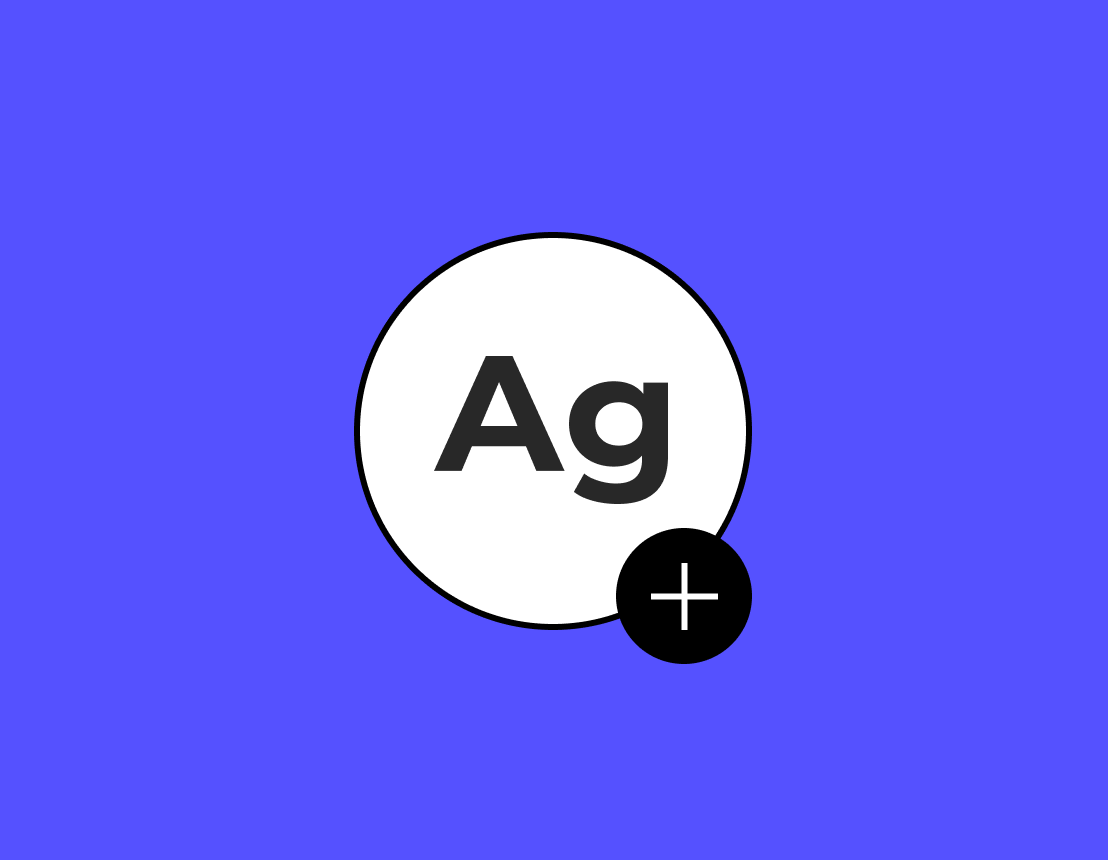
Montserrat Font Pairing
Inspired by an old neighborhood, Montserrat was created by Julieta Ulanovsky in 2010. It pairs well with Source Sans Pro, Fira Sans, Karla, Hind, and Inconsolata.
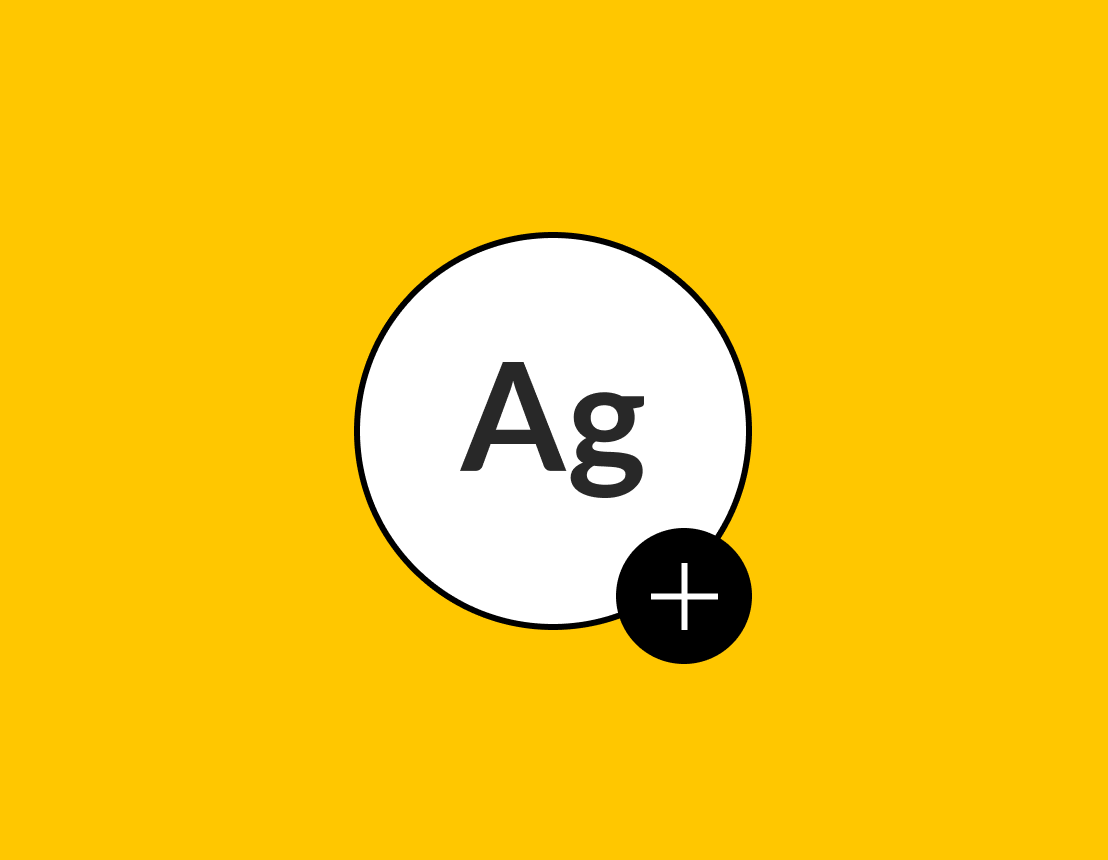
Lato Font Pairing
Lato is an open source, sans-serif font originally developed by Łukasz Dziedzic. It supports 100+ Latin-based languages and pairs well with Abril Fatface, Karla, Merriweather, and Francois One.
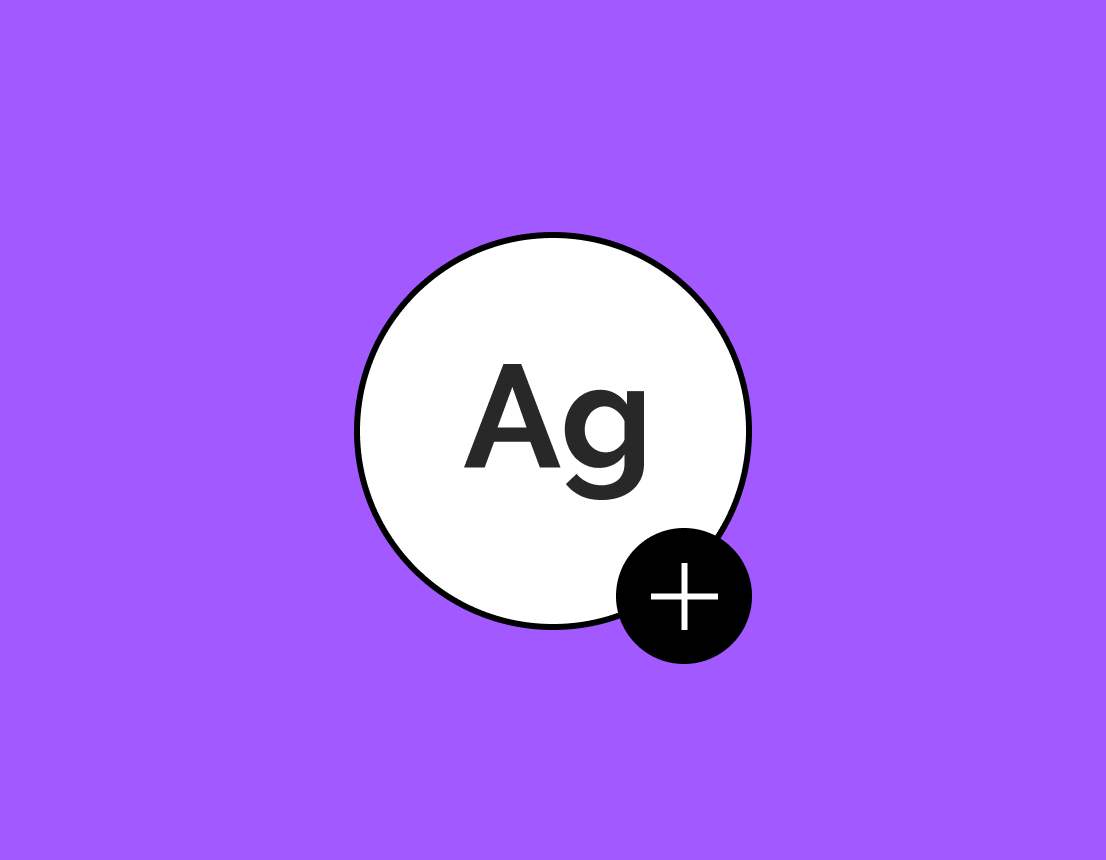
Raleway Font Pairing
Raleway is an elegant san-serif typeface developed by Matt McInerney in 2010. It pairs well with Merriweather, Bitter, Cabin, Hind, and Inconsolata.
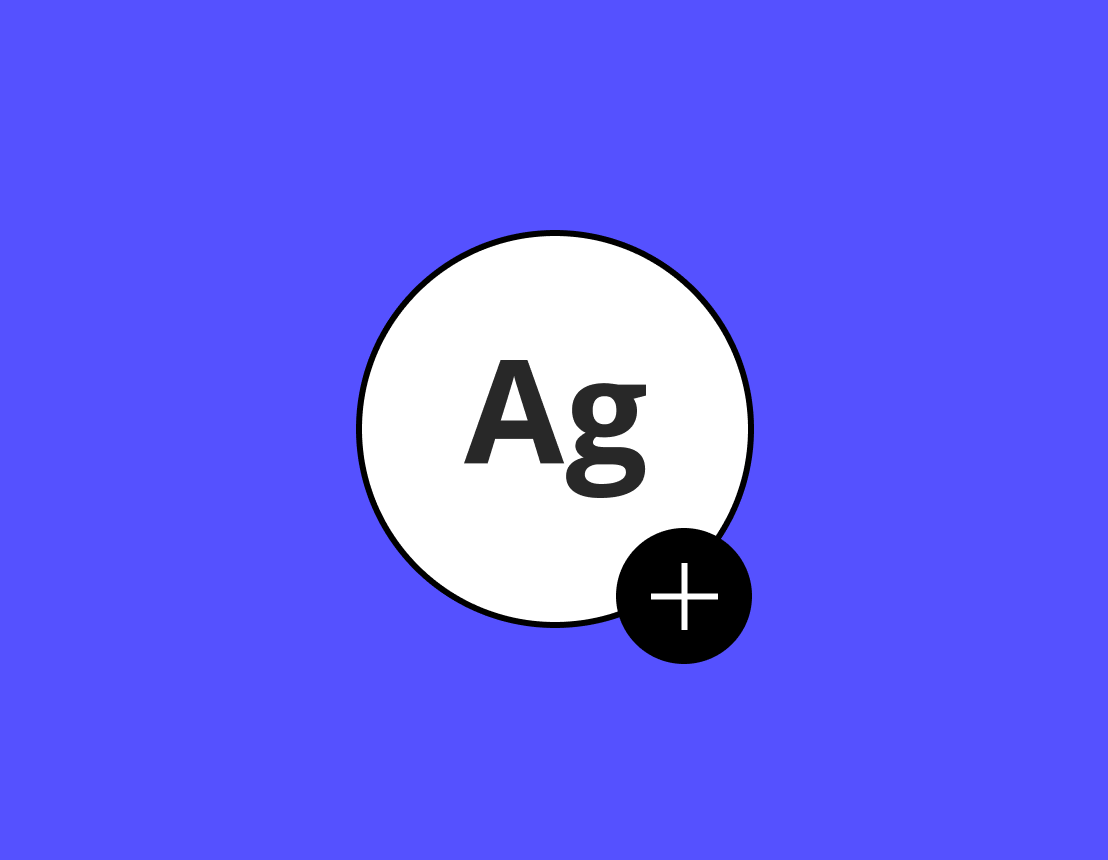
Open Sans Pairing
Open Sans is a sans-serif font developed by Steve Matteson. Its optimized for print, web, and mobile and pairs well with Montserrat, Bitter, Source Sans Pro, Domine, and Alegreya.
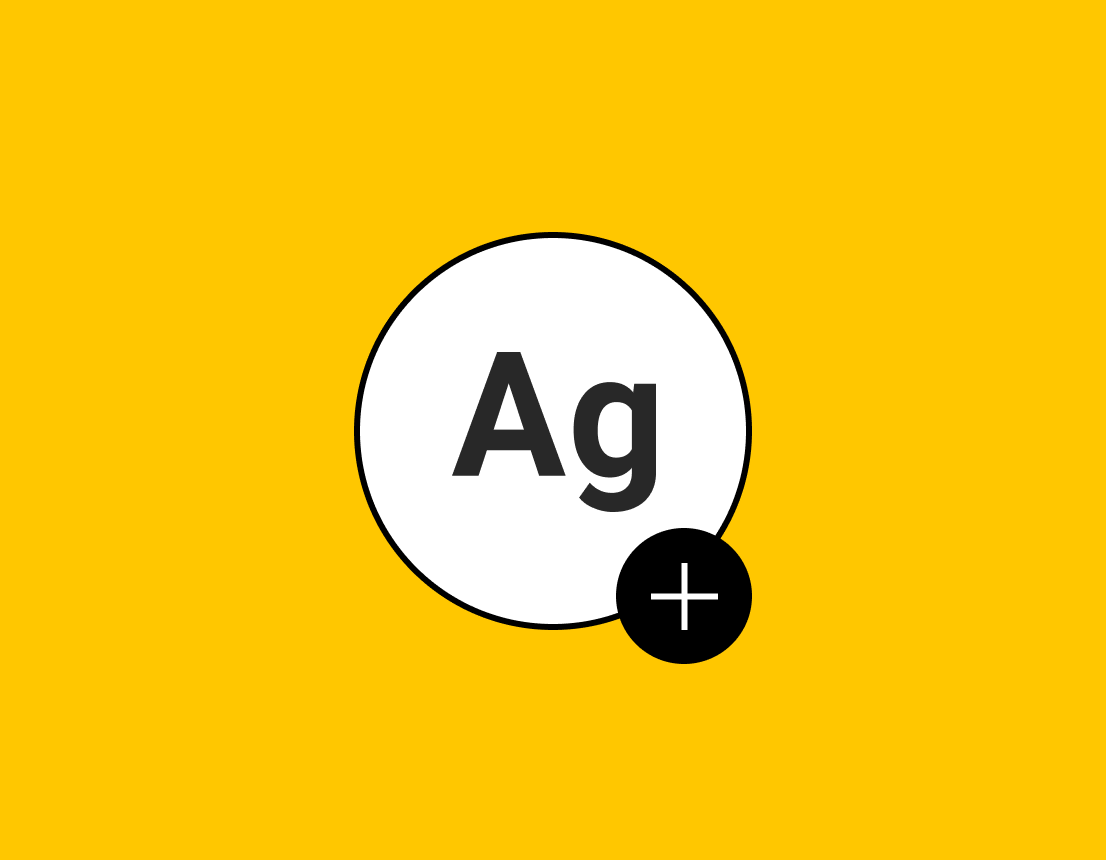
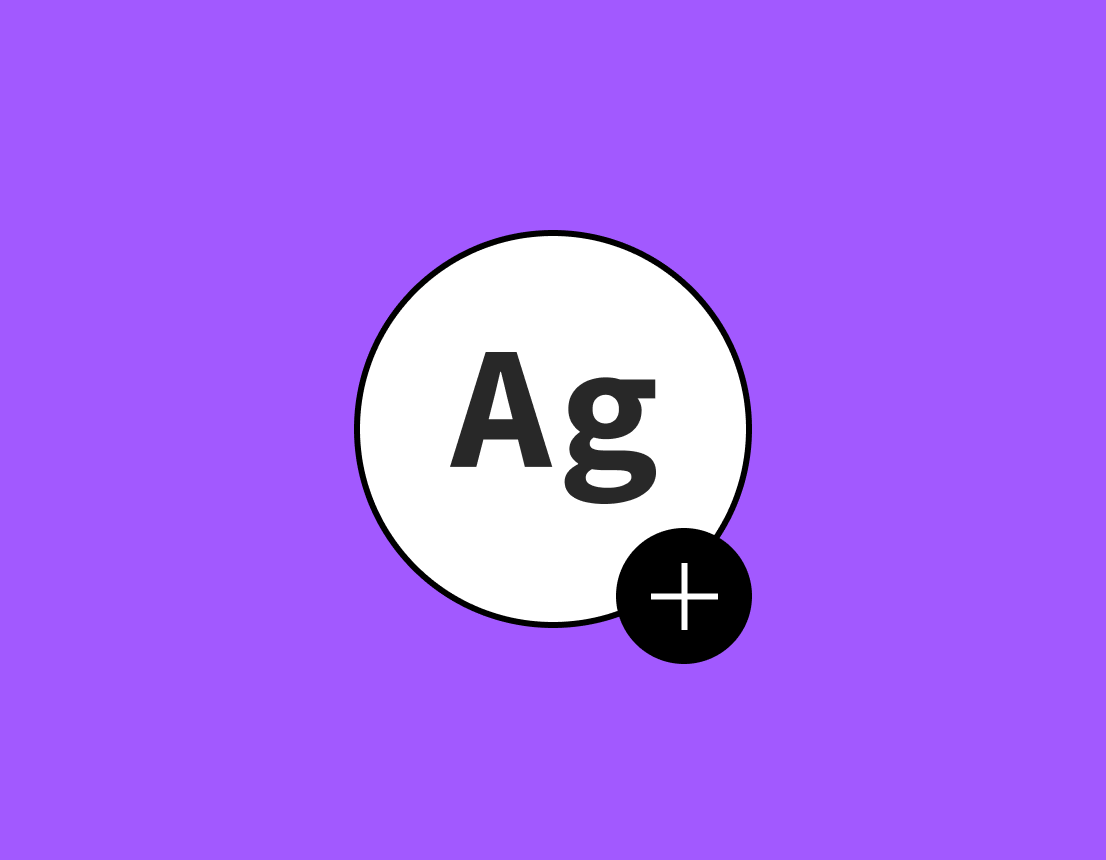
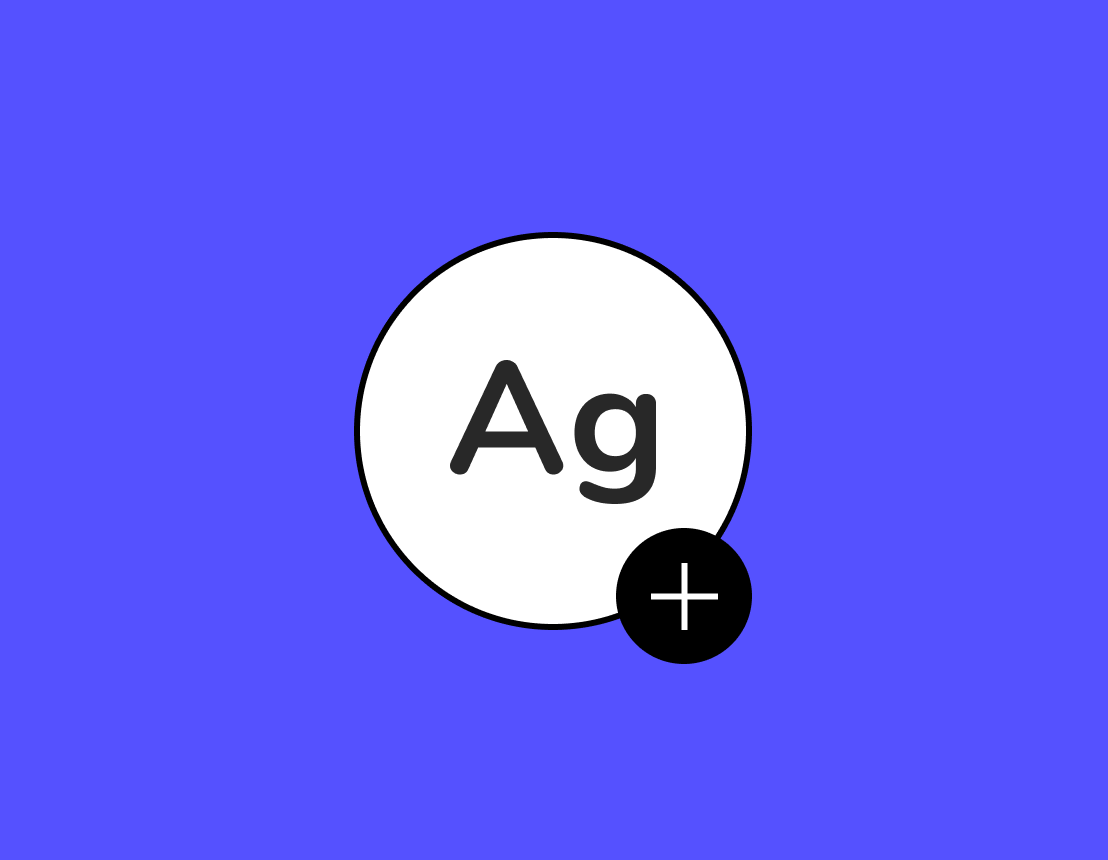
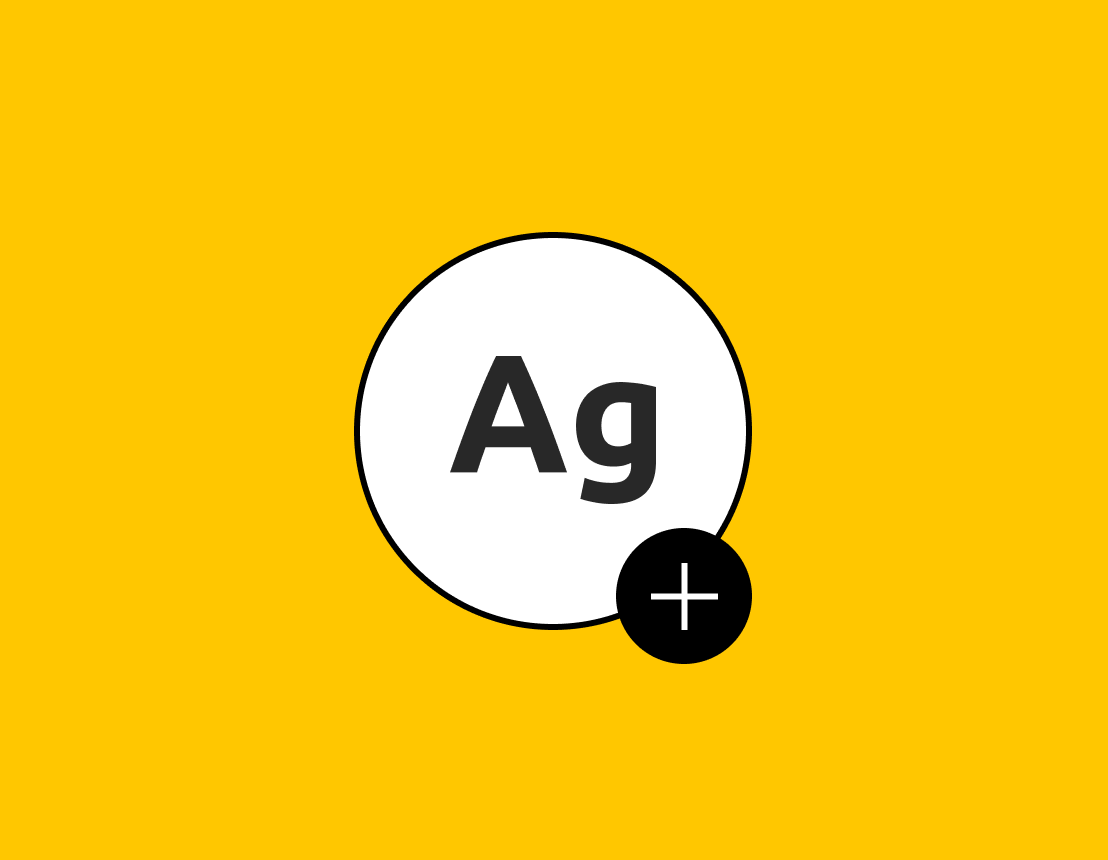
Ubuntu Font Pairing
The Ubuntu font family is a sans-serif typeface funded by Canonical and developed by Dalton Maag. It pairs well with Rokkit, Lora, Kreon, Cabin, and Source Sans Pro.
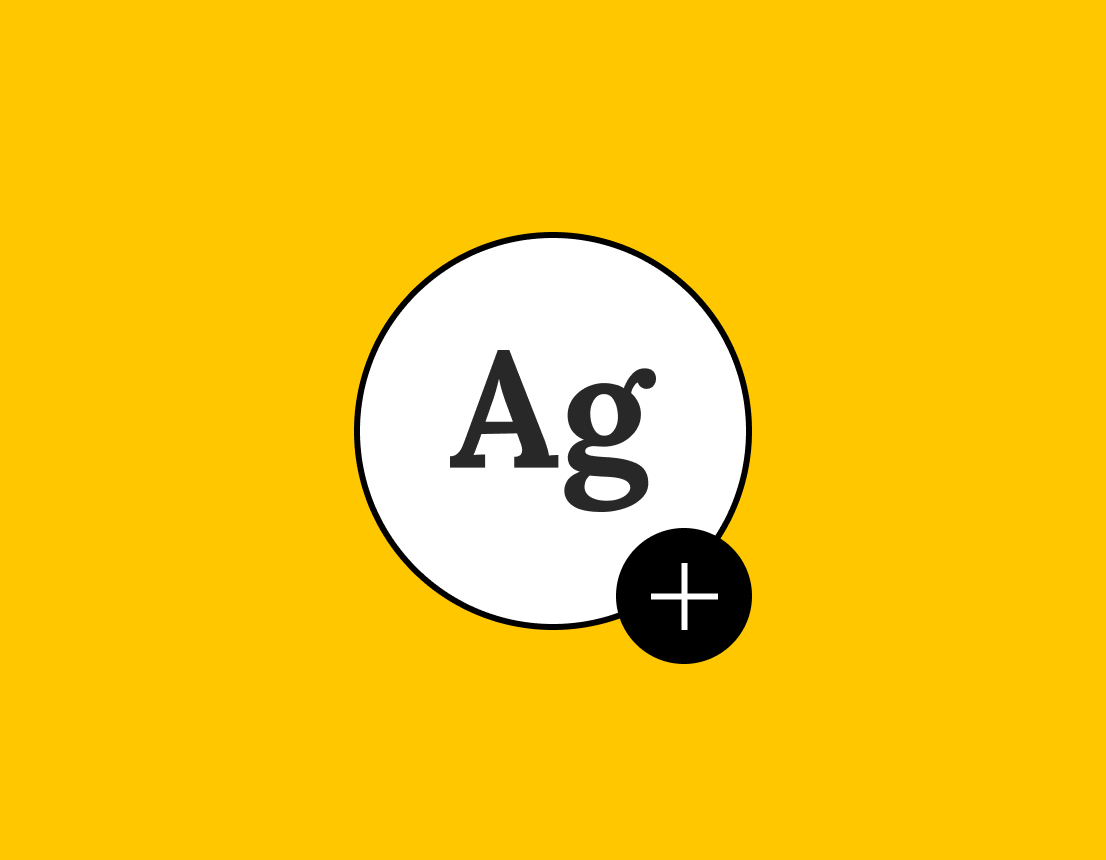
Lora Font Pairing
Lora is a well balanced serif with roots in calligraphy. Its well suited for body text and pairs well with Merriweather, Source Sans Pro, Roboto, Ubuntu and Open Sans.
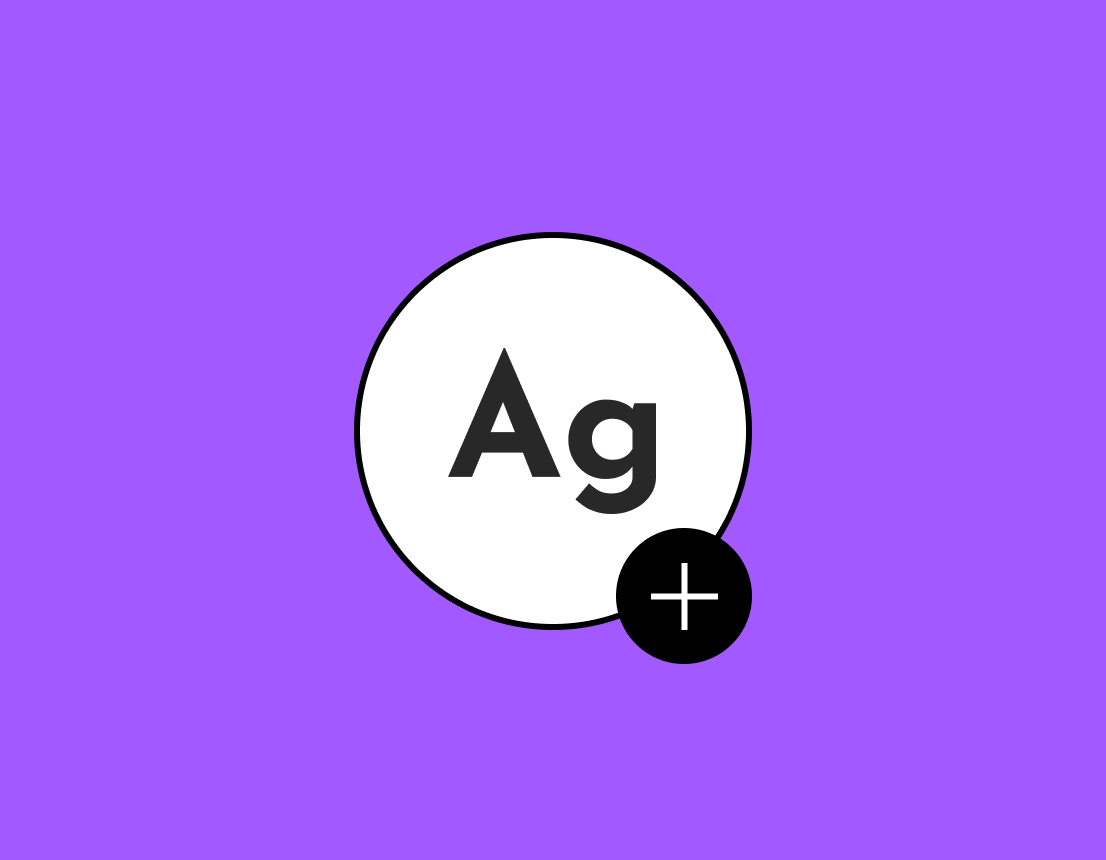
Josefin Sans Font Pairing
Josefin Sans is an elegant, geometric, vintage typeface meant to be used at larger sizes created by Santiago Orozco. It pairs well with Cardo, Abril Fatface, Yeseva One, Lato, and Playfair.